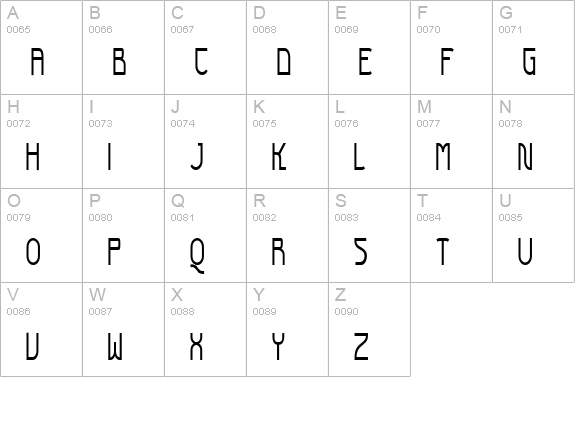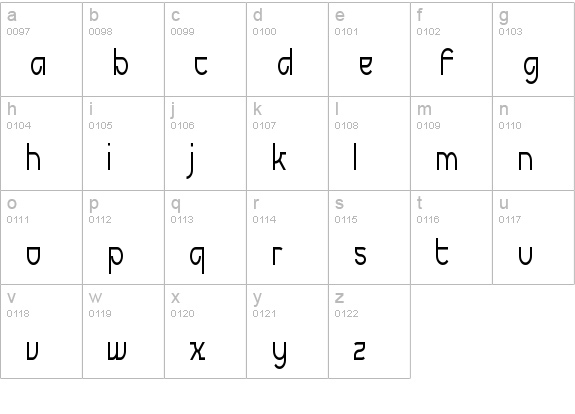
Futurex Narrow is a distinctive, condensed-width variant in the Futurex typeface family \xE2\x80\x94 well suited to design and typography projects.
Futurex Narrow is a modern and sleek font that exudes sophistication and elegance. With its clean lines and sharp edges, this font is perfect for adding a contemporary touch to any project. The narrow design of the letters gives a sense of sleekness and professionalism, making it ideal for use in branding, logos, and headings. What sets Futurex Narrow apart is that it is not only stylish and versatile but also completely free to download. You can get your hands on this stunning font at FontsMarket.com, where you can access a wide range of high-quality fonts for all your design needs. Don't miss out on the opportunity to enhance your projects with the timeless appeal of Futurex Narrow - download it today and elevate your designs to the next level.